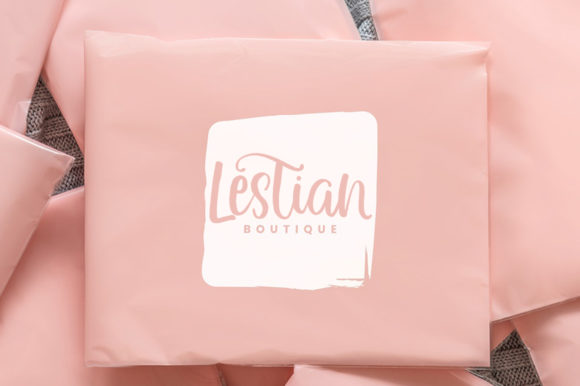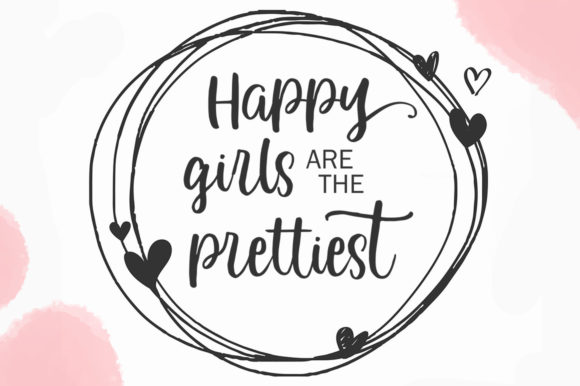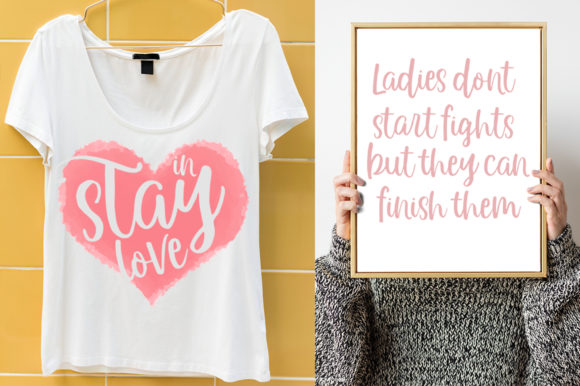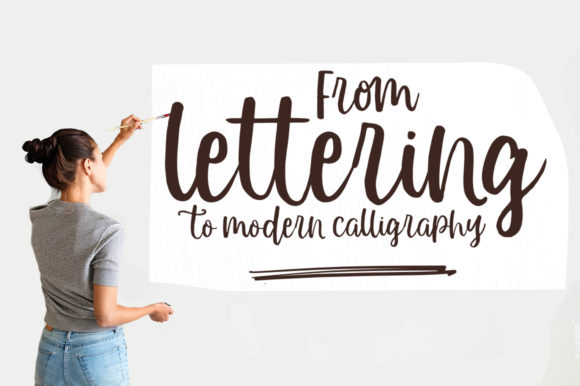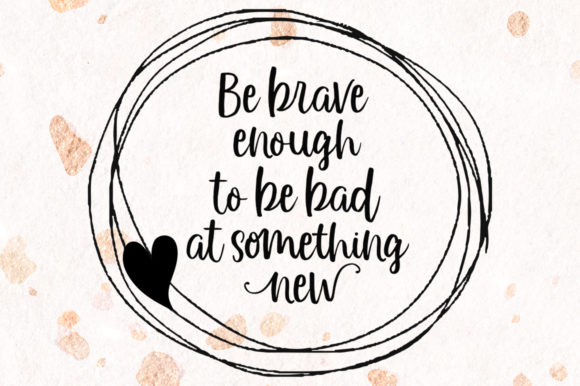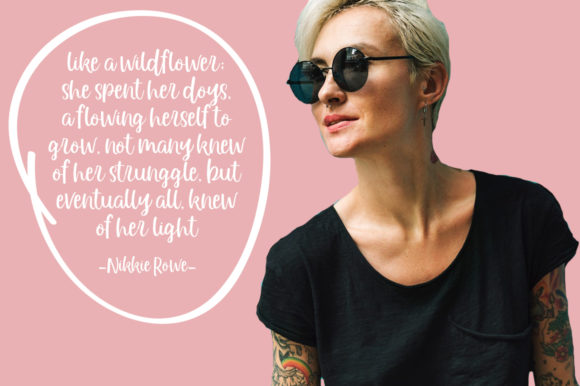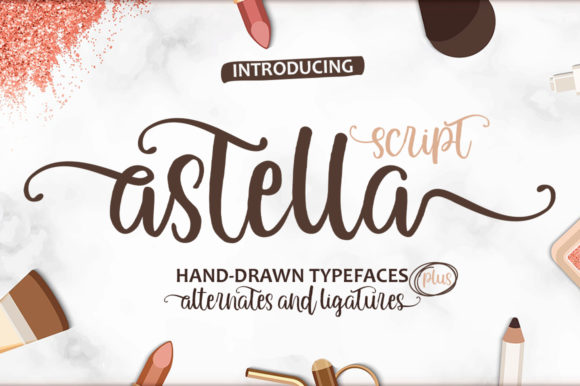
Introducing Astella Script Font: Elevate Your Design with Classic Elegance
In the world of typography, few fonts manage to strike a balance between classic sophistication and modern flair. Astella Script Font is one such exceptional typeface that brings a unique style to the table, making it an ideal choice for designers and crafters looking to add a touch of elegance to their projects. Inspired by the timeless beauty of classic typography, Astella script font is versatile, sophisticated, and sure to make a statement in any design.
The Inspiration Behind Astella
Astella’s design roots are firmly planted in traditional typography, yet it has been crafted with a modern twist that sets it apart from more conventional script fonts. This blend of old and new makes Astella a standout choice for designers seeking a font that pays homage to the past while still feeling fresh and contemporary. Whether you’re working on a branding project, a website, or a print design, Astella brings a level of sophistication that can elevate your work to new heights.
One of the key advantages of Astella script font is its incredible versatility. This fantastic script font is not just limited to headlines; it’s also perfectly suited for blocks of text that require both maximum and minimum variations. This flexibility makes Astella an excellent choice for a wide range of design projects, from luxury brand logos and elegant wedding invitations to stylish website headers and captivating video scripts.
Suitable for Various Design Applications
The adaptability of Astella script font extends to various design applications, making it a valuable addition to any designer’s toolkit. Here are some of the areas where Astella truly shines:
- Web Design: Use Astella to create stunning website headers, banners, and even large blocks of text. Its readability and aesthetic appeal make it perfect for web projects that require a touch of sophistication.
- Print Design: From luxury brochures and high-end business cards to elegant posters and eye-catching flyers, Astella brings a level of class and refinement that’s hard to match.
- Moving Images: Whether you’re creating video content, animations, or movie titles, Astella’s elegant flow and classic charm can add a significant impact to your visual storytelling.
- Crafting and DIY Projects: For crafters and DIY enthusiasts, Astella can be used in a variety of creative projects, such as hand-lettering, journaling, and decorative art pieces, adding a personal and sophisticated touch.
Why Choose Astella Script Font?
With so many fonts available, why should Astella be your go-to choice? Here are a few compelling reasons:
- Unique Style: Astella’s distinctive style sets it apart from more generic fonts, ensuring your designs stand out.
- Elegance and Sophistication: It brings a level of elegance that’s suitable for high-end brands and luxury projects.
- Versatility: Its adaptability across different design applications and sizes makes it incredibly versatile.
- Readability: Despite its script nature, Astella maintains excellent readability, even at smaller sizes.
Astella script font is more than just a typeface; it’s a design statement. With its roots in classic typography and a unique modern twist, Astella can bring a touch of elegance and sophistication to any design project. Whether you’re a professional designer or a crafting enthusiast, Astella offers the versatility and style needed to create stunning visuals that capture attention and convey luxury. Make Astella a part of your design arsenal and witness how it transforms your creative projects into masterpieces of elegance and charm.